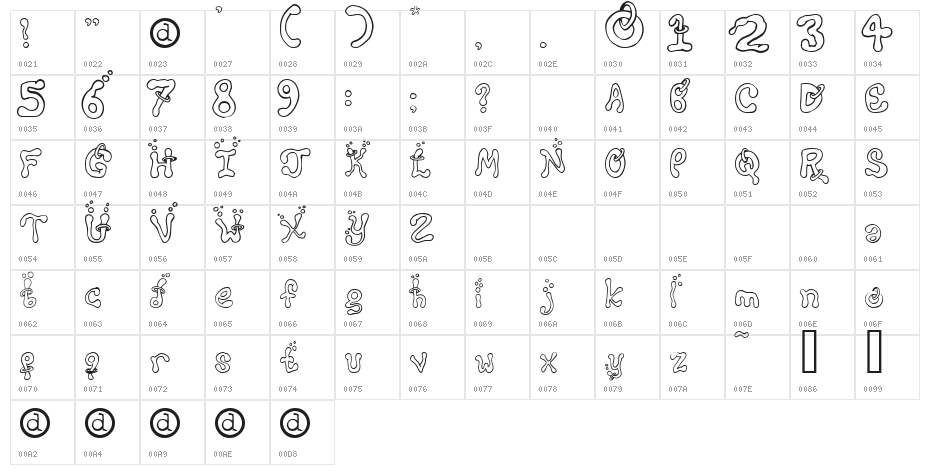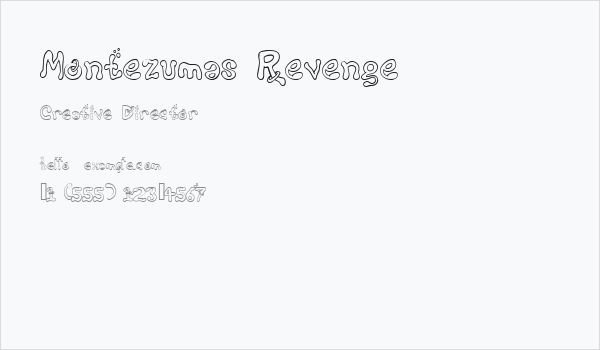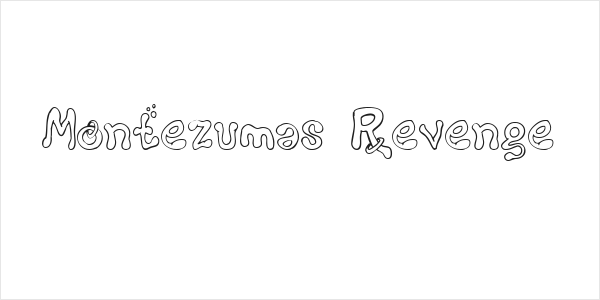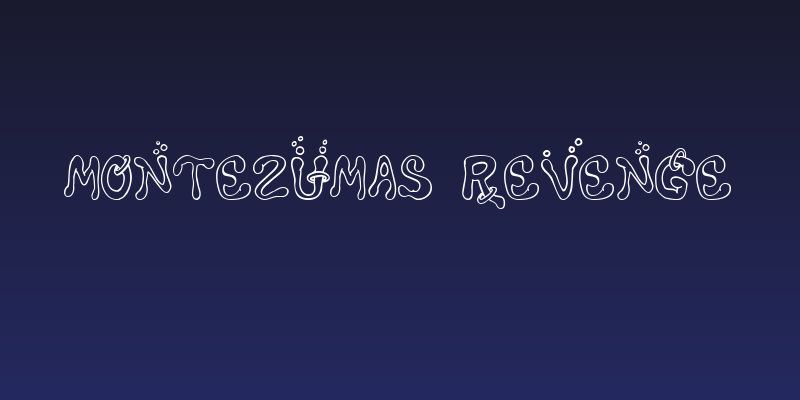
Montezumas Revenge Font
Montezumas Revenge Description
This playful and whimsical font features a unique, bubbly outline style with a hand-drawn appearance. Each character is adorned with small dots and accents, giving it a lively and energetic feel. The uppercase and lowercase letters maintain a consistent style, with rounded edges and a slightly irregular shape that adds to the charm. Numbers and special characters follow the same design, ensuring a cohesive look across all elements. This font is perfect for projects that require a fun and informal touch, such as children's books, party invitations, or playful branding.
| Proposed Projects | Ideal for children's books, party invitations, playful branding, and creative posters. |